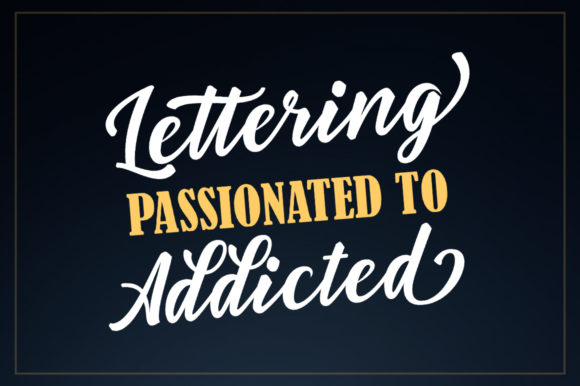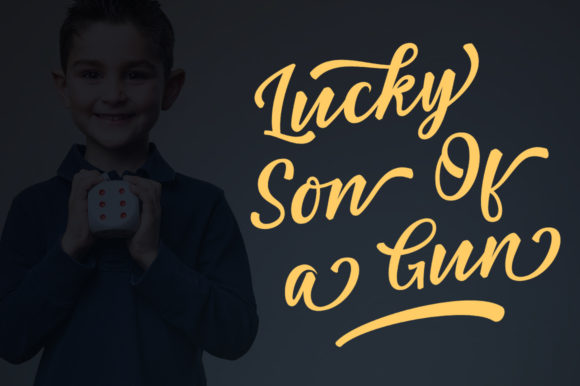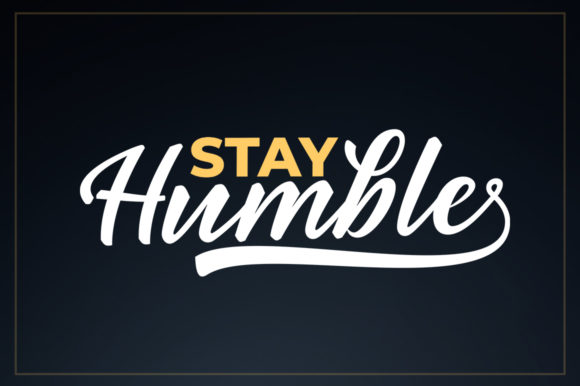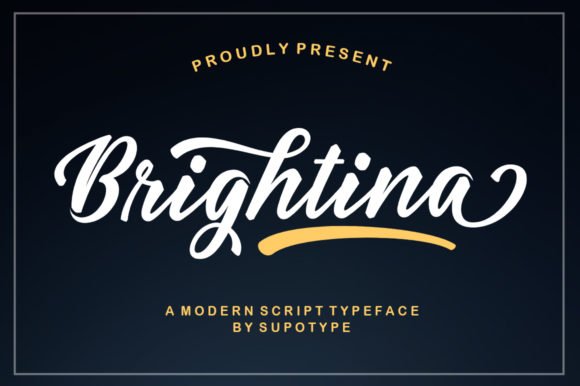
Discover the Timeless Charm of Brightina Script Font
Remember that moment when you stumbled upon the perfect font that made your design project come alive? For many creatives, that ‘aha’ moment is a game-changer. It’s the difference between a decent design and a truly captivating one. And for those who have experienced this magic, they’ll understand why we’re excited to share the story of Brightina Script Font.
Brightina Script Font is a beautiful, handwritten font that embodies the charm of a bygone era. Its playful, cursive strokes bring a smile to the face, making it perfect for designs that need a touch of warmth and personality. Whether you’re creating a logo, a wedding invitation, or a social media post, Brightina Script Font is the perfect addition to your design toolkit.
Brightina Script Font Key Features
- Unique Characteristics: Brightina Script Font features a beautiful, elegant script style with flowing connections and subtle flourishes, making it perfect for invitations, wedding stationery, and other special occasions.
Brightina Script Font Review
I recently had the chance to work with the Brightina Script font, and I must say it’s a beautiful addition to any design project. ✨ Here are some of the things that stood out to me:
- Unique and elegant feel: The Brightina Script font has a distinct, handwritten look that adds a touch of sophistication to any design.
- Great for headings and titles: The font is perfect for creating attention-grabbing headings and titles that draw the viewer’s eye.
- Highly legible: Despite its script-like appearance, the font is surprisingly easy to read, making it a great choice for body text as well.
- Limited font sizes: The font may not be as effective at very small or very large sizes, so be sure to test it at various scales before finalizing your design.
- Not suitable for body text at very long lines: The font’s script-like nature can make it difficult to read when used for very long lines of text.
Overall, I’m impressed with the Brightina Script font and would definitely recommend it for designers looking to add a touch of elegance to their projects. Just be mindful of the limitations and use it thoughtfully to get the best results.
Tips for Getting the Most Out of Brightina Script Font
Use Brightina Script Font in combination with bold or italic text to add contrast and visual interest.
Experiment with different font sizes and colors to create a unique look.
Use Brightina Script Font in a title or heading to draw attention to important information.
Brightina Script Font is perfect for:
Branding and logos.
Photography captions and quotes.
Alternatives to Brightina Script Font for Designers
Carolyna Pro is a beautiful script font with a mix of elegance and sophistication. It’s perfect for creating invitations, wedding stationery, and other high-end designs. This font is ideal for designers who want a more refined and luxurious feel.
Compared to Brightina Script Font, Carolyna Pro has a more refined and delicate appearance, making it suitable for more formal designs. While Brightina Script Font has a more playful and whimsical feel, Carolyna Pro is better suited for designs that require a touch of sophistication.